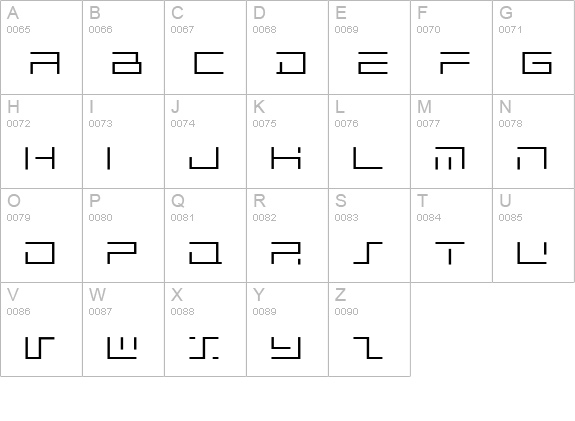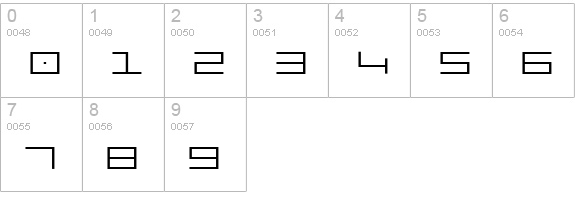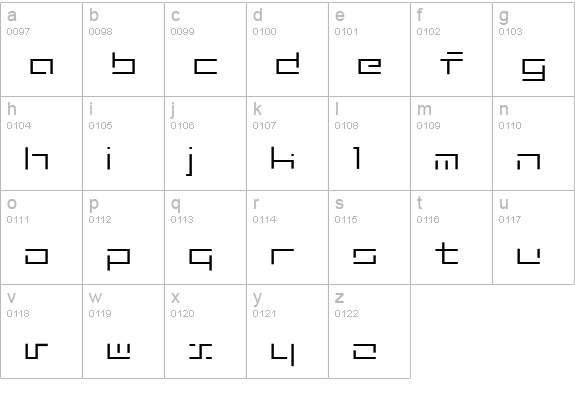
MINIMALHARD Font Details
MINIMALHARD font is a sleek and modern typeface that exudes a sense of minimalist sophistication. Its clean lines and sharp edges give it a distinctive and edgy look that is perfect for making a bold statement in your design projects. With its minimalist design and hard-hitting aesthetic, MINIMALHARD font is sure to catch the eye and leave a lasting impression. And the best part? MINIMALHARD font is available for free to download at FontsMarket.com. This means you can easily add this stylish typeface to your font collection without breaking the bank. Whether you're working on a branding project, a website design, or any other creative endeavor, MINIMALHARD font is a versatile and striking choice that will elevate your work to the next level. Download it today and start using it to make your designs stand out from the crowd.